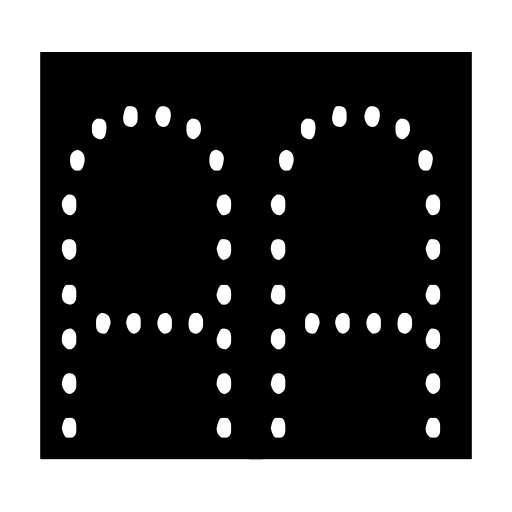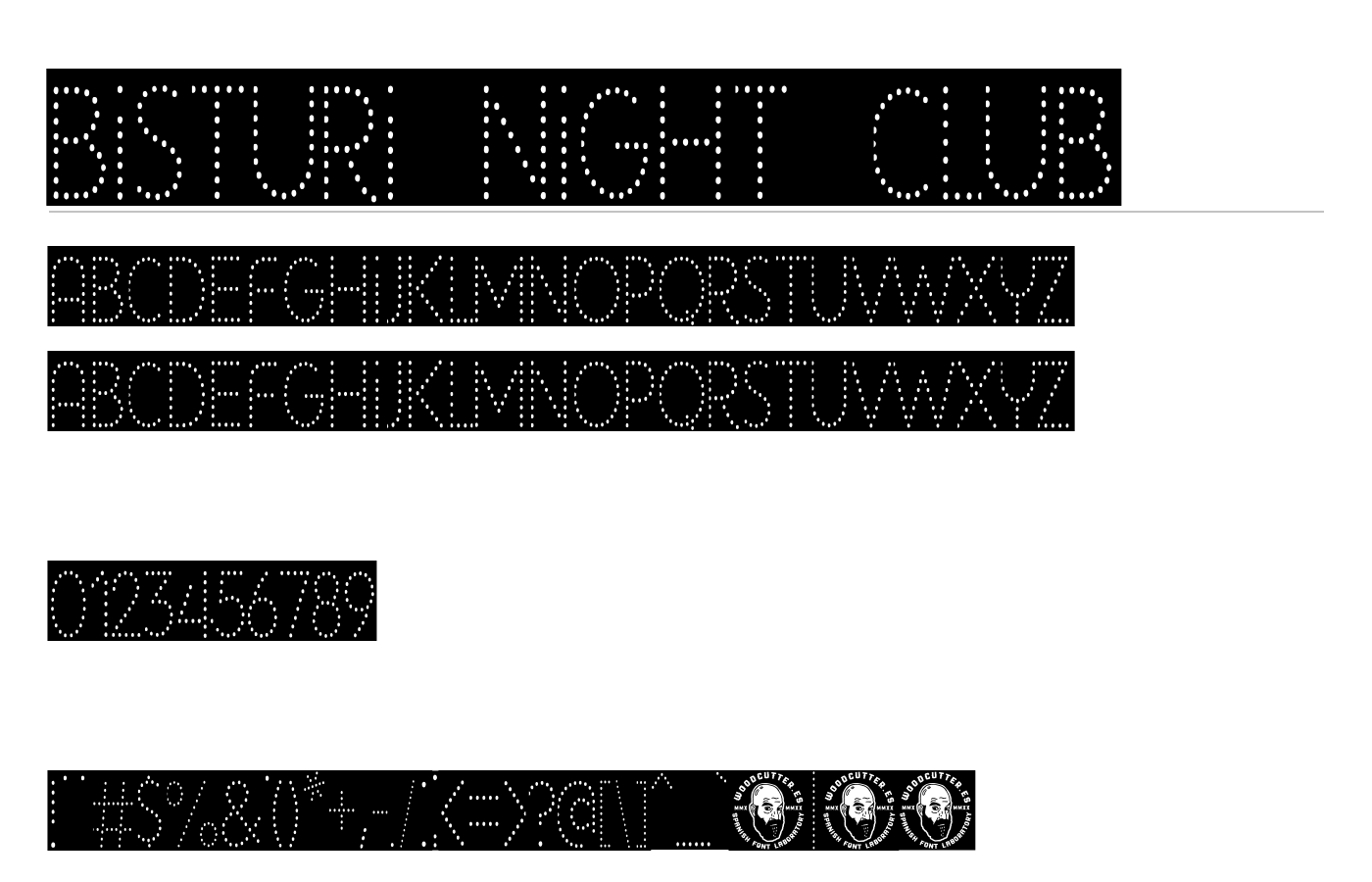
Bisturi Night Club is a unique sans serif display font featuring letters formed by evenly spaced dots, evoking the look of vintage marquee or nightclub signage. Its tall, narrow uppercase characters with consistent light weight create a modern yet retro vibe, making it perfect for eye-catching headlines, event posters, or branding that aims to capture a lively, nightlife atmosphere. This font’s playful and stylish personality shines in settings where a bold, decorative touch is desired to stand out and draw attention.
bisturi night club Font
About bisturi night club Font